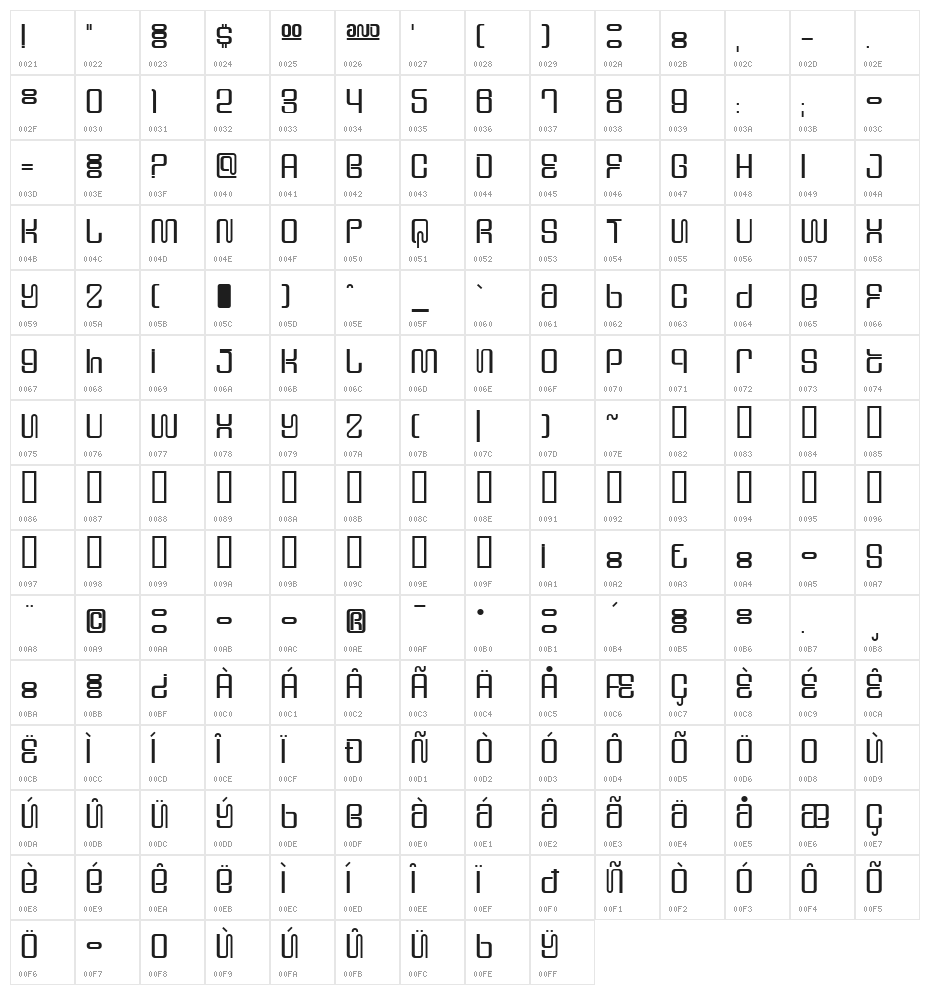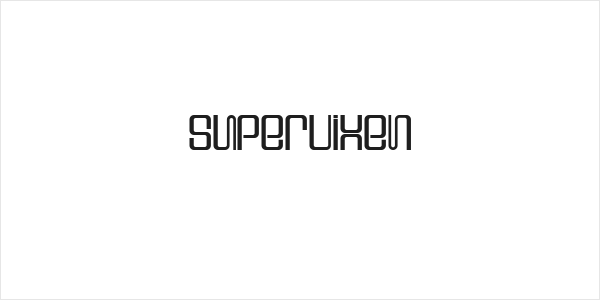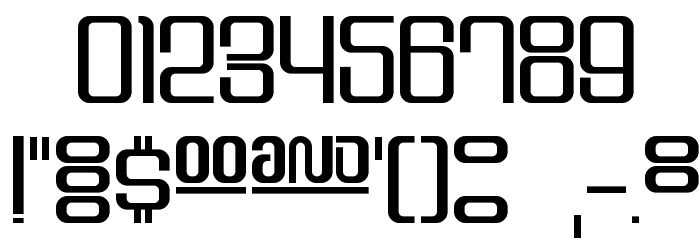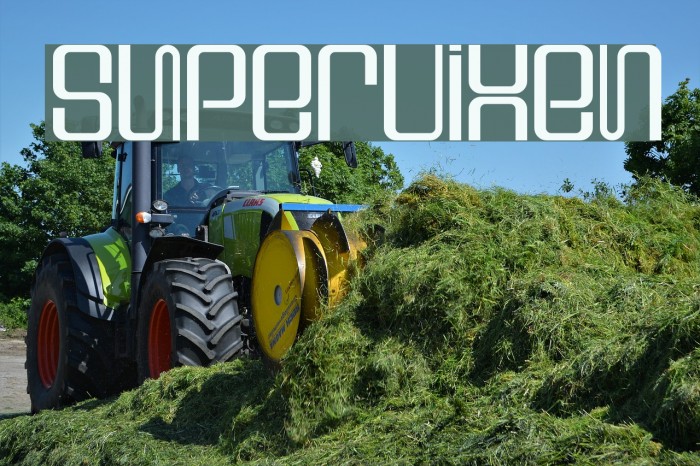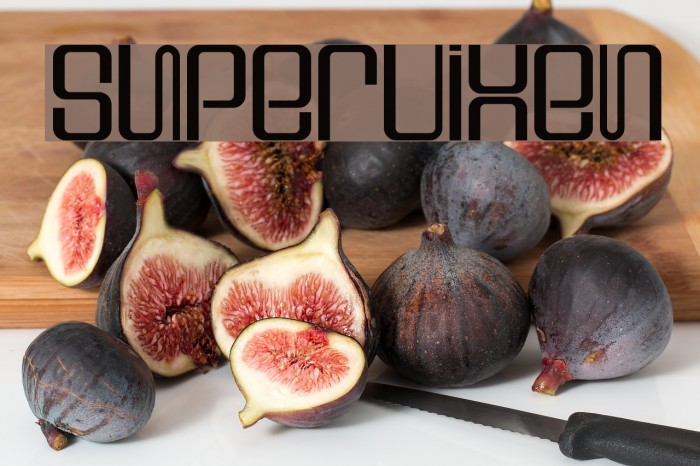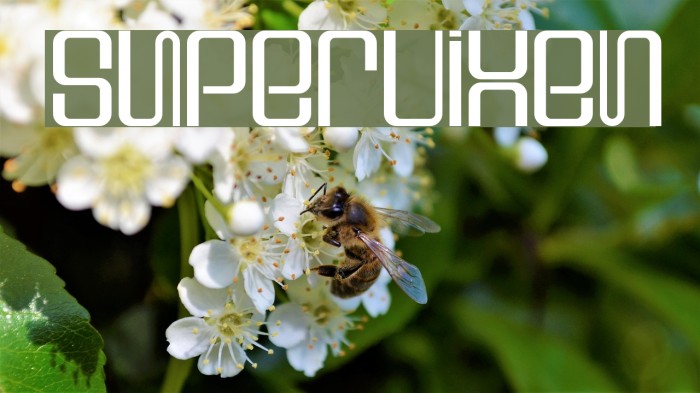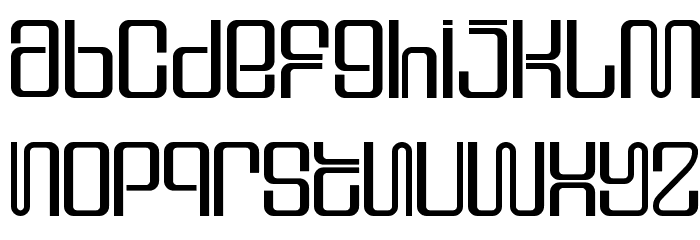
Supervixen Font
Supervixen Description
This font features a modern, geometric design with a distinctively futuristic feel. The characters are constructed with rounded corners and consistent stroke widths, giving it a sleek and streamlined appearance. The uppercase and lowercase letters maintain a uniform height, contributing to a cohesive and balanced look. The numerals and special characters follow the same design principles, ensuring visual harmony across all glyphs. The font's style is both bold and minimalistic, making it suitable for contemporary design projects that require a strong visual impact.
| Proposed Projects | Ideal for tech branding, futuristic posters, digital interfaces, and modern advertising. |